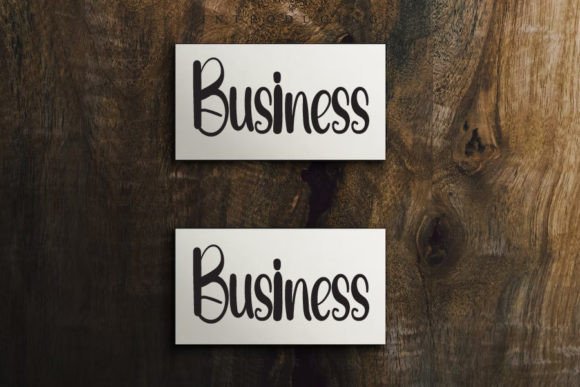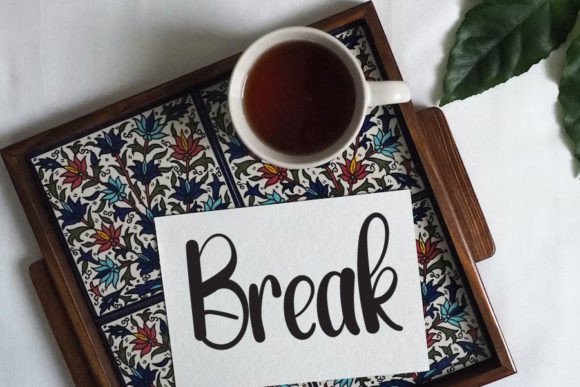
About Remember Font
“Remember” is a bold and exquisite handwritten font that exudes style, grace, and flow. This font is designed to elevate the appearance of your creative projects while maintaining a grounded and natural aesthetic.
The charm of “Remember” lies in its bold yet graceful script. Its stylish and well-crafted characters create a visually captivating and refined experience, making it an ideal choice for projects that aim to convey a sense of elegance and natural beauty.
One of the standout qualities of “Remember” is its ability to make your creations stand out with bold and exquisite lettering. Whether you’re using it for branding, designing elegant invitations, crafting memorable quotes, enhancing greeting cards, or working on various other creative projects, “Remember” seamlessly integrates into your creative vision.
This font’s dedication to providing a stylish and natural look to your projects sets it apart. Whether you’re working on personal or professional endeavors, “Remember” brings a sense of grace and elegance to your work that resonates with a diverse audience.
In summary, “Remember” is more than just a font; it’s a bold and refined creative tool that can elevate your projects with style and grace. Whether you’re a professional designer seeking an elegant and versatile font or an enthusiast passionate about crafting and design, “Remember” is here to make your designs shine with its bold and exquisite script. Embrace the elegance of “Remember,” and watch your creativity flourish with sophistication and natural beauty.